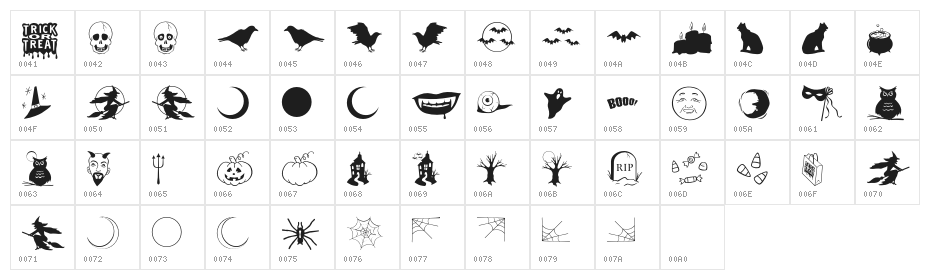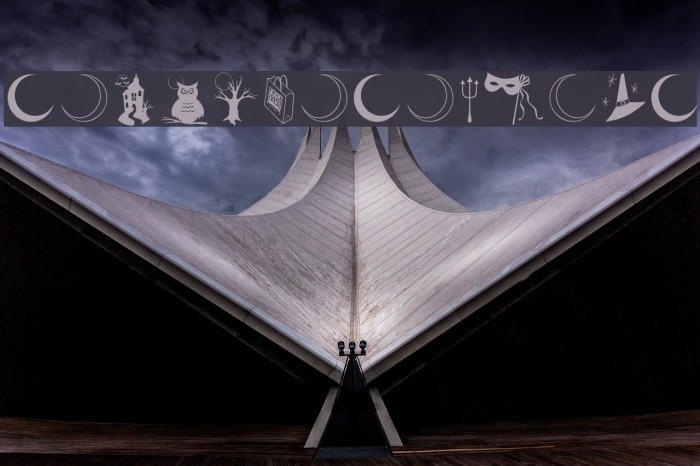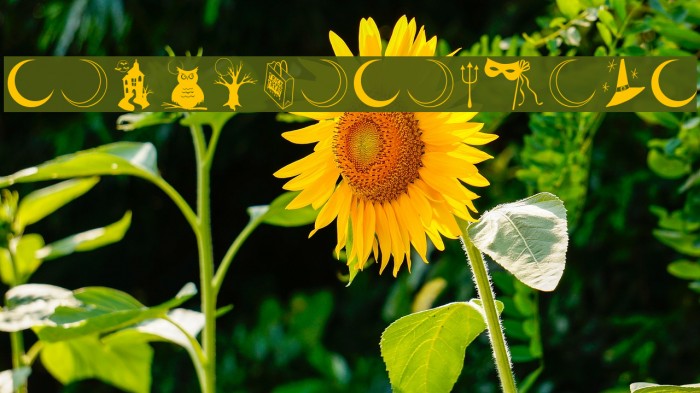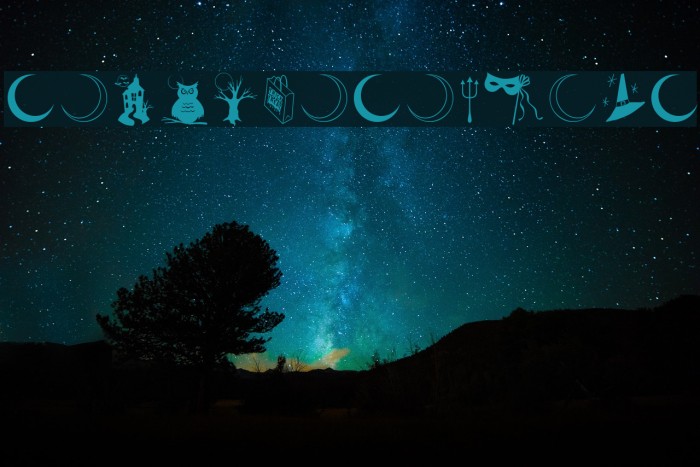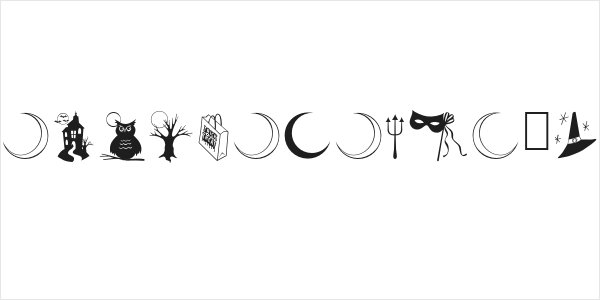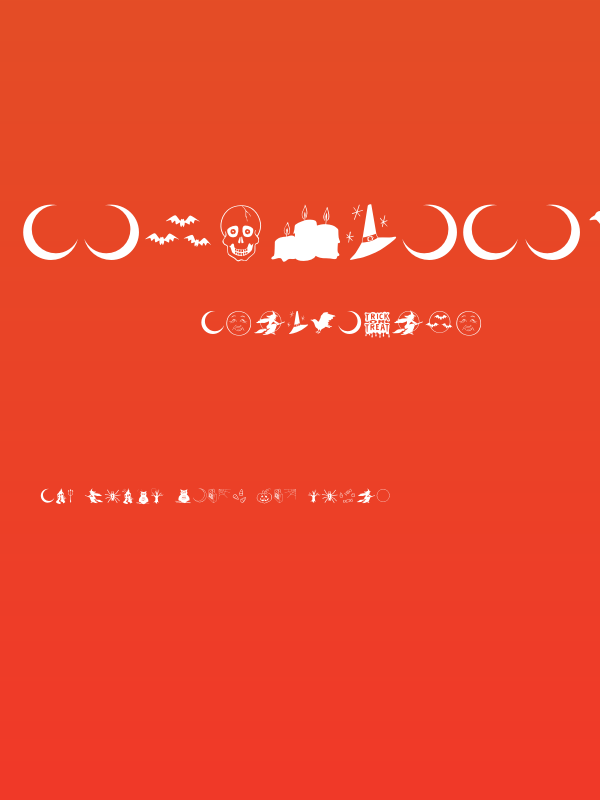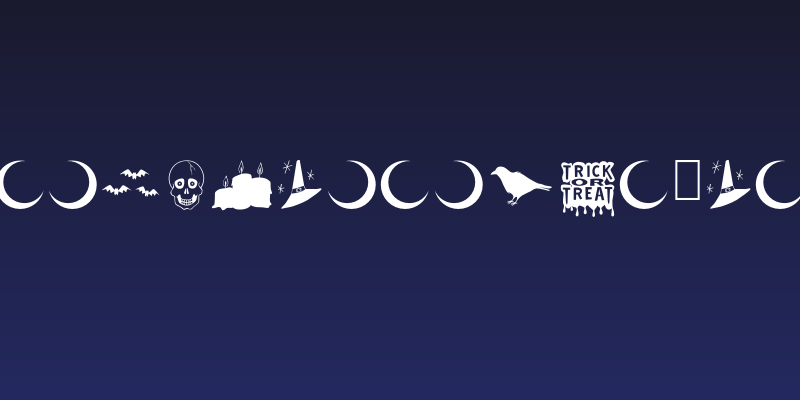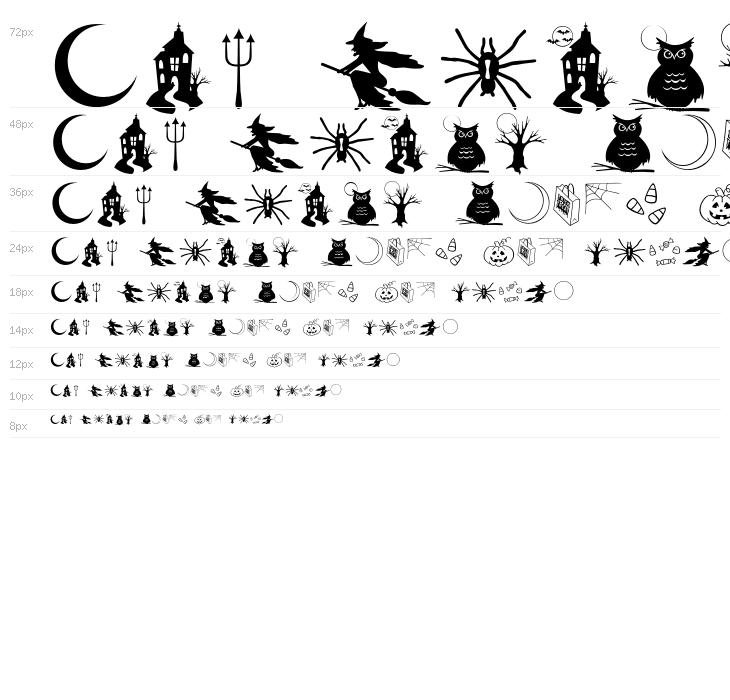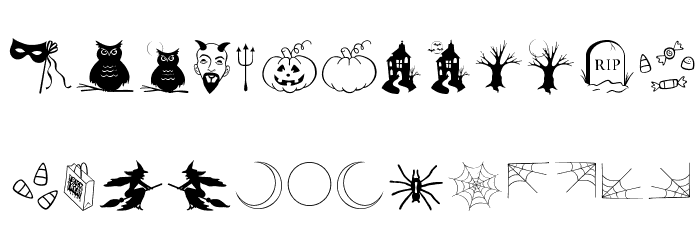
TrickorTreat2OT Font
TrickorTreat2OT Description
A decorative Halloween-themed dingbat font featuring various spooky icons such as skulls, witches, bats, pumpkins, haunted houses, and other related imagery. Each character is represented by a unique Halloween illustration rather than traditional alphanumeric glyphs.
| Overall Style | Decorative, Thematic, Playful |
| Use Case | Themed graphics, Decorative elements, Event materials |
| Proposed Projects | Halloween party invitations, event flyers, themed decorations, social media graphics, children's crafts, and seasonal merchandise. |